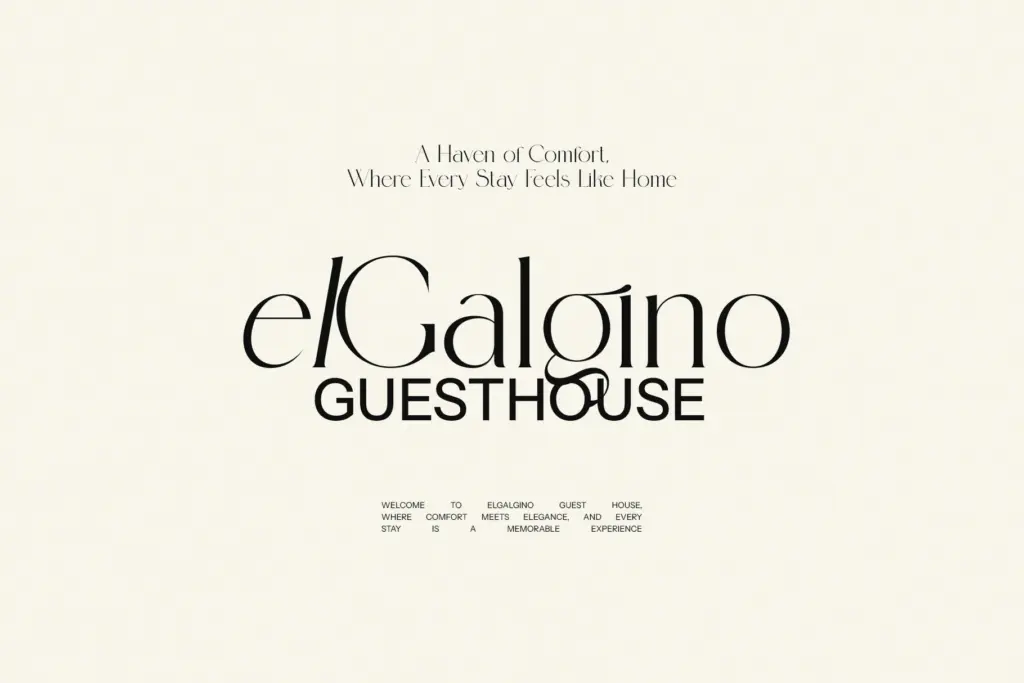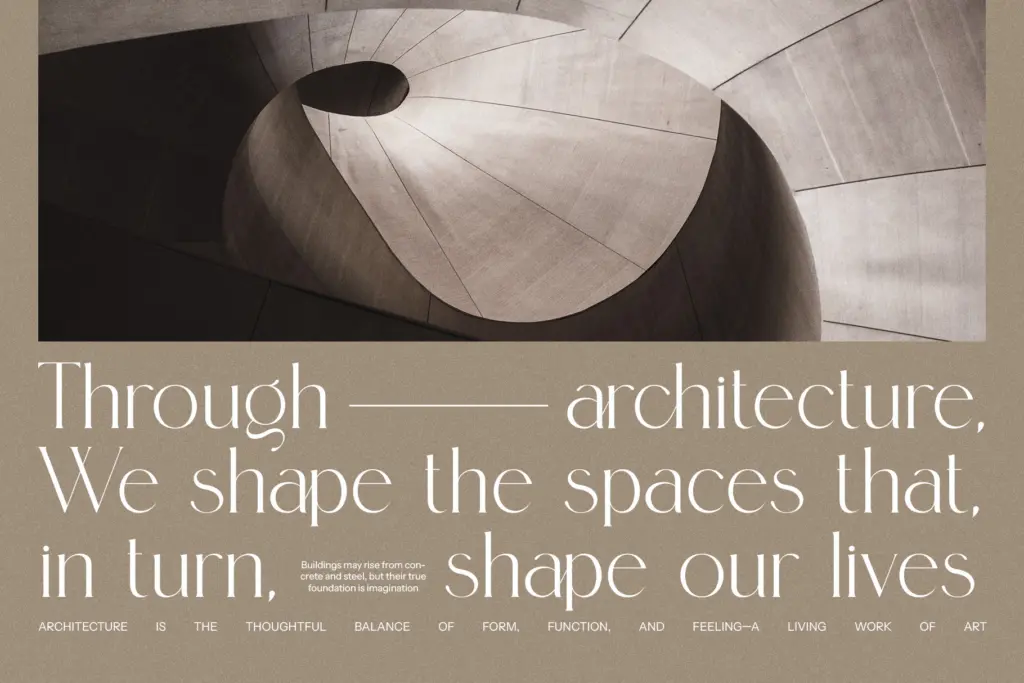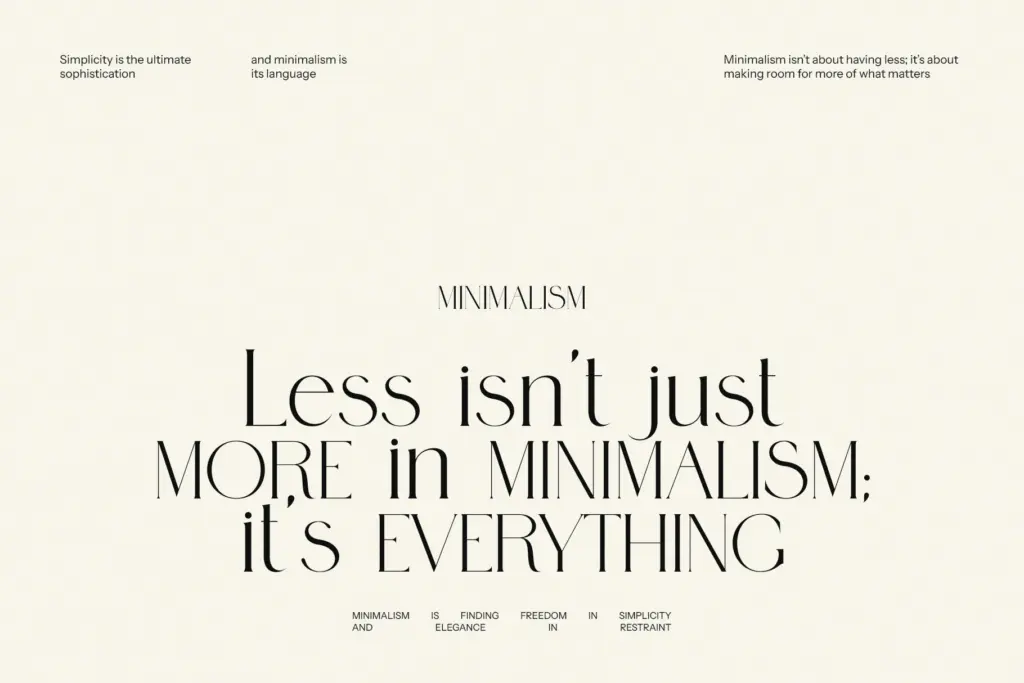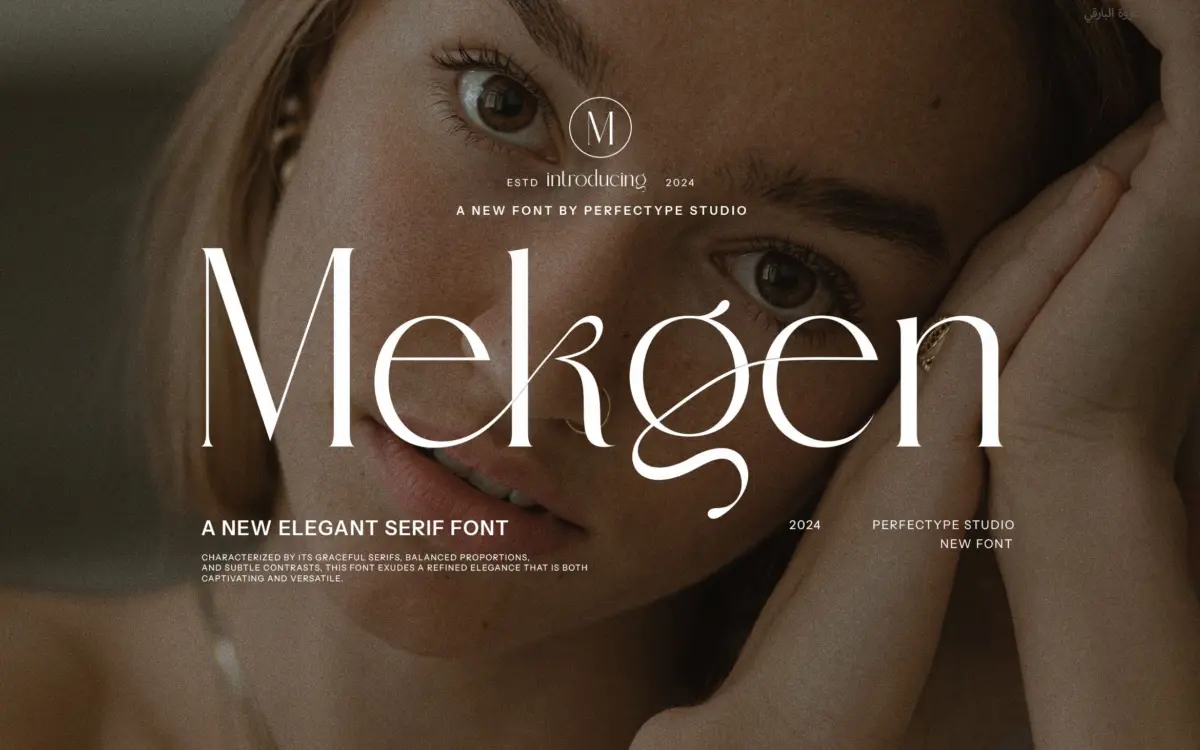
Mekgen sits in the well-worn territory of the “elegant serif for branding” brief, and it does that job with a fairly light touch. The strokes carry moderate contrast rather than the high-drama swing of a display didone, and the serifs are trimmed close, bracketed just enough to keep them from looking brittle. It reads as tidy rather than ornamental at its core, which is really the point: the decoration is layered on separately through ligatures and swashes rather than baked into the base letterforms.
That separation matters. The plain lowercase is restrained, almost quiet, so the personality of the typeface depends heavily on which alternates you switch on. Left untouched, Mekgen looks like a competent classic serif. Turned on with its swash caps and connecting ligatures, it shifts into something closer to a formal script hybrid. This is a deliberate design choice, but it means the typeface has two fairly different faces depending on how much time you spend in the glyph panel.
The ligature and alternate set is the real offer here. There are joining forms for common letter pairs, a set of swash capitals, and stylistic alternates for several lowercase letters, giving a working designer room to vary repeated words in a logotype or headline without duplicating identical letterforms. This is useful in short-form work — a wordmark or a single line of packaging copy — where the eye lands on every letter and small variation reads as craft rather than accident.
Where it’s less generous is at length. Punctuation and figures are present but plain, and there’s no indication of extended language support beyond the basics, so anyone setting non-English copy should check the character map before committing. The font also doesn’t come with a companion weight or italic in the brief, which limits how much hierarchy you can build with Mekgen alone — you’ll likely need to pair it with something else for body text or secondary information.
Mekgen is best treated as a display and identity tool rather than a text face. It suits logotypes, short headline treatments, product labels, and the kind of one-line stationery work — invitation lettering, monograms, watermark text — where the ligatures and swashes have room to do their job and the letter count stays low. Packaging front-of-pack type and social graphics built around a single word or short phrase are also a reasonable fit, since the alternates give designers a way to make a repeated brand name feel considered rather than templated.
It’s a poor choice for anything set in paragraphs or at small point sizes: the swash forms in particular will fight legibility once you’re below headline scale, and the plain letterforms alone don’t offer enough character to carry long-form editorial work. Treat it as a finishing font for identity and packaging, not a general-purpose serif for a whole design system.
- Ligatures and swash alternates give repeated words in a wordmark visible variety
- Base letterforms are restrained enough to work quietly when alternates are switched off
- Well matched to short-form packaging and label work where every letter is seen
- No companion weight or italic limits hierarchy options within a single design
- Swash forms lose clarity quickly below headline size, so it's unsuitable for body text
Mekgen is a competent identity serif whose real value lives in its ligature and swash alternates rather than its base letterforms. It's well suited to logotypes, labels, and short stationery lines, but it's not built to carry paragraphs or complex layouts on its own.